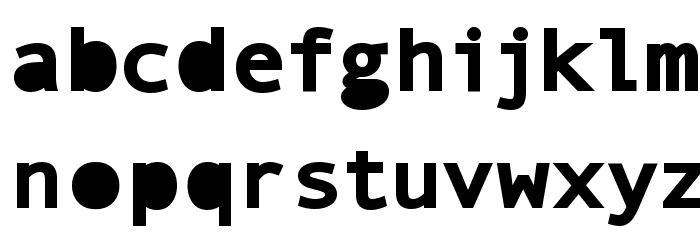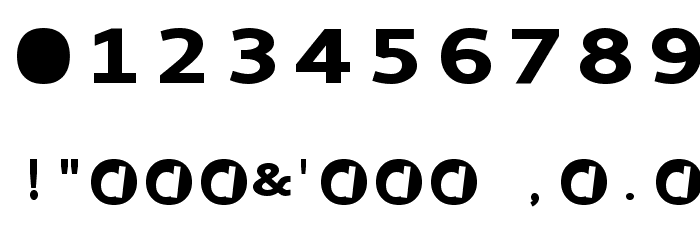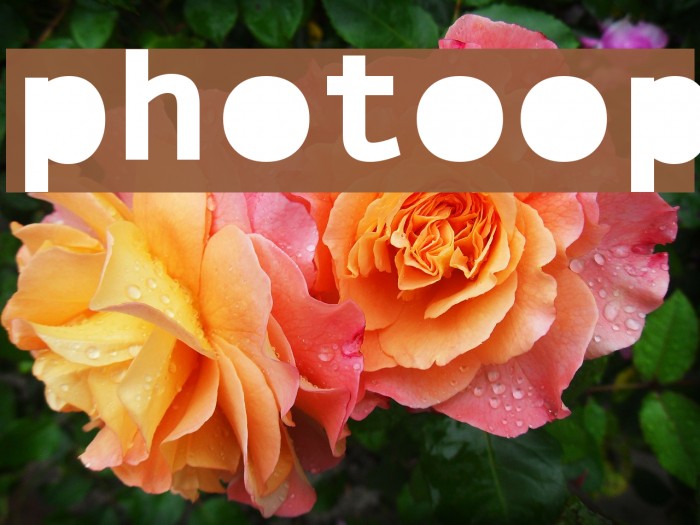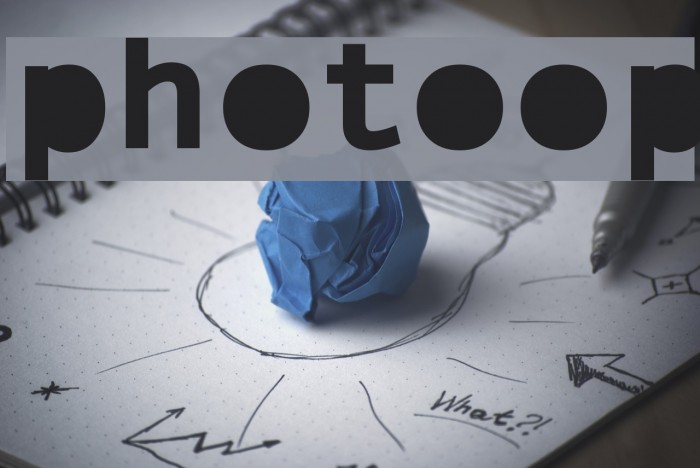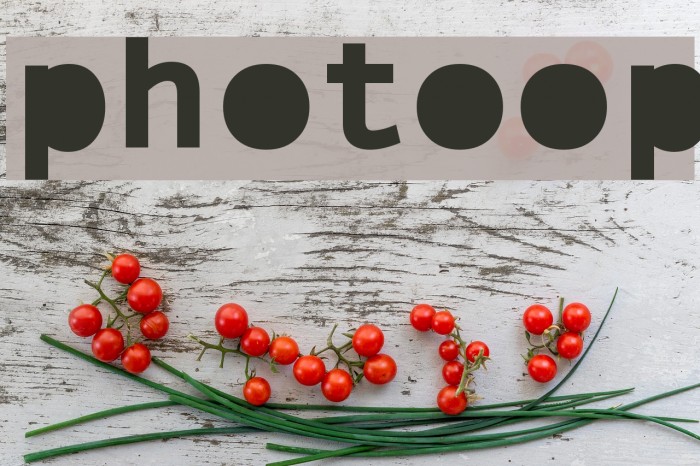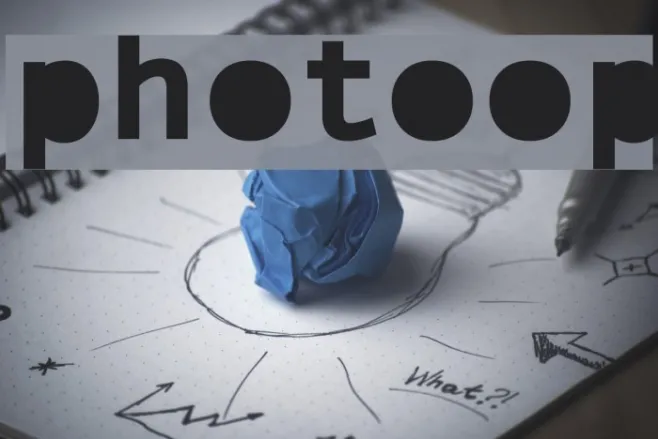
PhotoOp Font
This font features a bold and playful design with rounded edges and a strong presence. The characters are thick and have a uniform stroke width, giving them a solid and impactful appearance. The rounded terminals and slightly condensed letterforms contribute to a friendly and approachable look. The numbers and special characters maintain the same boldness, ensuring consistency across all glyphs. This font is well-suited for projects that require a fun and engaging aesthetic, such as children's books, playful branding, or eye-catching headlines.
A bold, playful font with rounded edges and a strong presence.
- Proposed Projects: Ideal for children's books, playful branding, and eye-catching headlines.
- Overall Style: Playful